Intel One Mono was set to be discontinued in September 2026. Intel archived its GitHub repository. Shortly afterwards, the company reversed its decision and brought the font back.
Why is the return of a single typeface worth paying attention to? Intel One Mono was never designed as a typical corporate font. It was created for programmers. Its purpose is to make code easier to read while also addressing the needs of developers with visual impairments.
Intel One Mono was designed for programmers
Intel introduced One Mono in 2023. It is a monospace font, which means that every character occupies the same amount of horizontal space. This type of font is commonly used in programming.
Intel developed the typeface in collaboration with Frere Jones Type and VMLY&R. Developers with low vision and blindness were also involved in the testing process.
The goal was clear. Create a font that makes long hours of reading source code more comfortable.
Its design reflects this purpose. Similar looking characters are easier to distinguish from one another. Adjusted letter proportions also make it easier to navigate through text.
Intel One Mono supports more than 200 languages that use the Latin script. It comes in four main weights including Light, Regular, Medium and Bold. Each weight is also available in italics.
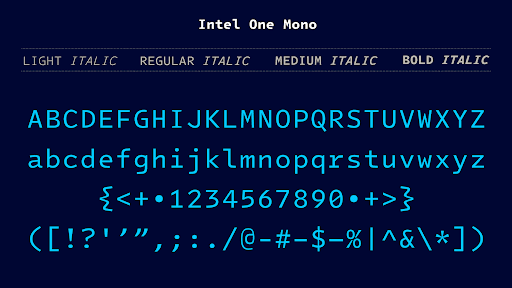
Why Intel initially discontinued the font
In September 2026, Intel archived the Intel One Mono repository on GitHub.
The decision was part of a broader reduction in the company's open source projects. Intel had been discontinuing projects that were no longer actively developed or had lost their original maintainers.
One Mono had also seen relatively little development in recent years. According to Tom's Hardware, the font had not received a significant update since 2024.
Intel quickly reversed its decision. The repository was restored and the font remains available as an open source project.
A corporate font can be about more than appearance
Brands often create custom typefaces to build a consistent visual identity. Intel One Mono follows a slightly different logic.
It is directly connected to the world Intel operates in. Technology, software, developers and code.
As a result, Intel One Mono creates a distinctive visual style, makes code easier to read and reflects the technological character of the brand.
Here, design is more than decoration. It has a specific purpose.
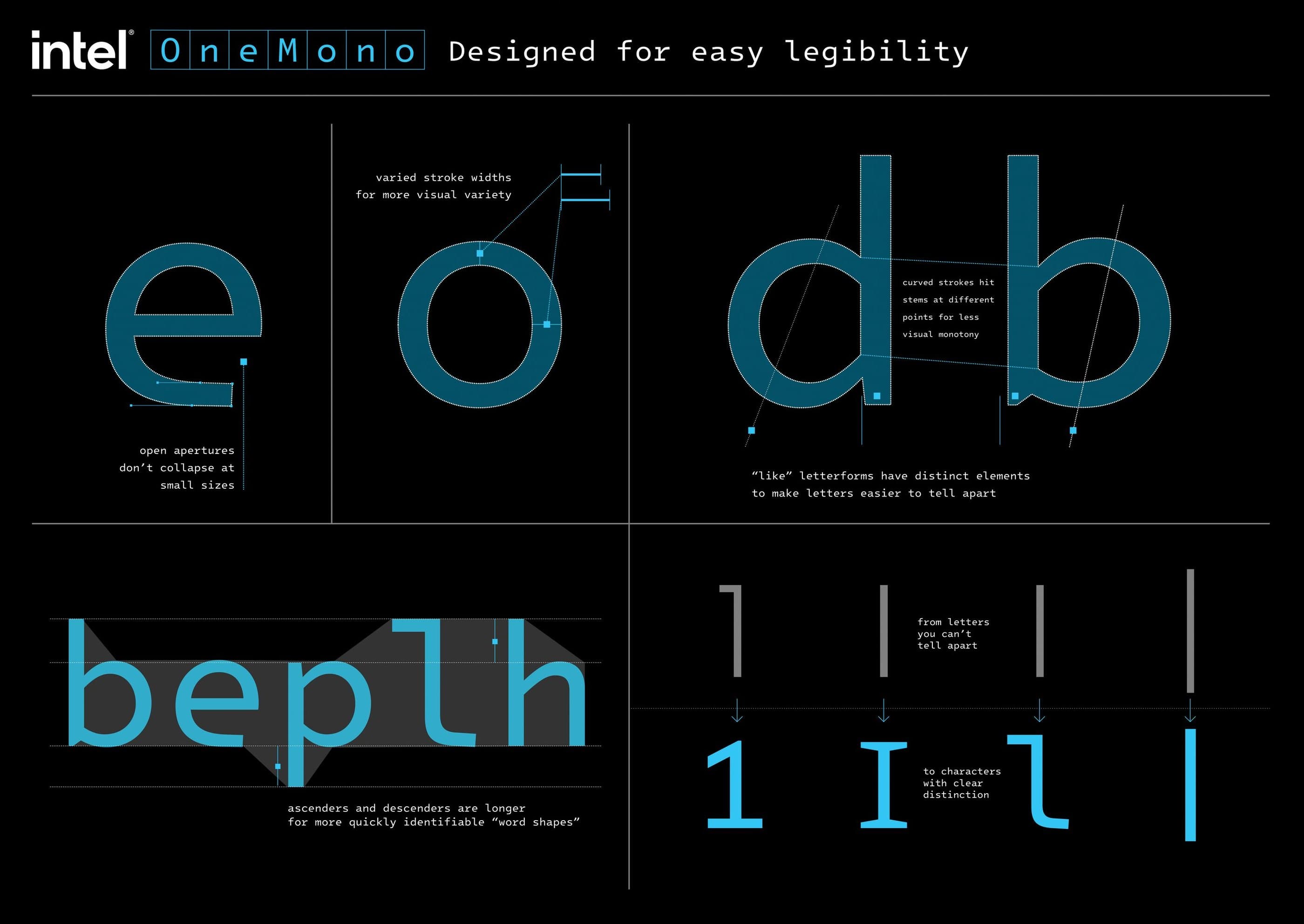
Accessibility was part of the design from the start
People with visual impairments were involved during the development of Intel One Mono. Their experience helped shape the appearance of the characters themselves.
Clearer differences between similar letters and numbers make code easier to navigate and help reduce the risk of confusing one character with another.
The benefits are not limited to people with visual impairments. A highly legible font can help anyone who spends several hours a day looking at a code editor.
Intel One Mono shows that accessibility does not have to be added to a design afterwards. It can be a natural part of the design process from the very beginning.
Intel One Mono survived its brief retirement
Intel One Mono connects brand identity with a specific function. It was created for an environment closely associated with Intel, while its design responds to the real needs of developers.
Its brief retirement and quick return are also a reminder that a valuable brand asset does not need to be constantly redesigned or updated.